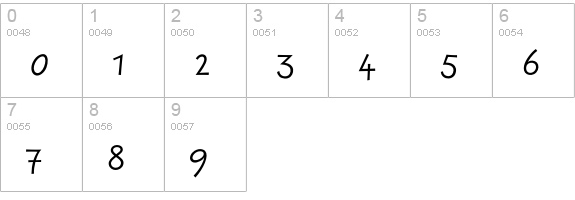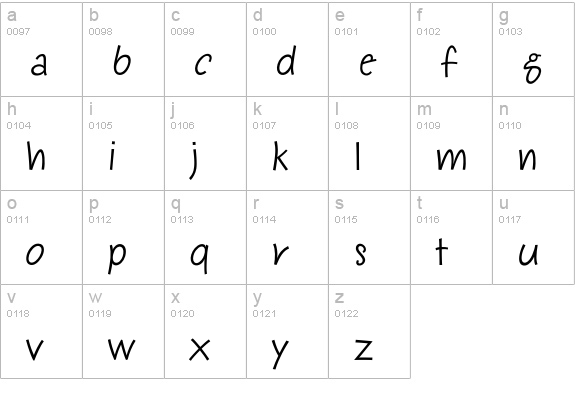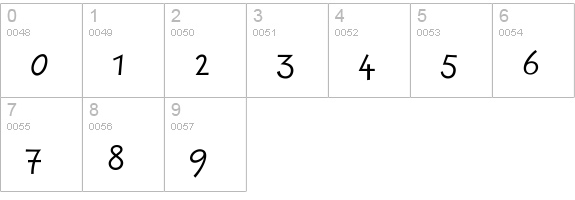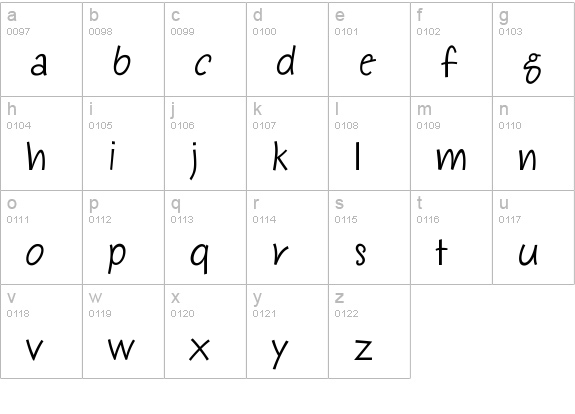
Friday-Regular is the standard, neutral variant in the Friday typeface family \xE2\x80\x94 well suited to general body text, paragraphs, and standard typographic work.
Friday-Regular font is a versatile and modern typeface that exudes a sense of sophistication and style. With its clean lines and balanced proportions, this font is perfect for a wide range of design projects. Whether you're creating a logo, designing a website, or working on a print layout, Friday-Regular is sure to make your text stand out. The best part about Friday-Regular font is that it is completely free to download. You can easily access this font at FontsMarket.com, where you can explore a vast collection of high-quality fonts for all your design needs. Don't miss out on the opportunity to enhance your projects with the elegant and timeless Friday-Regular font. Download it today and start creating stunning designs effortlessly.